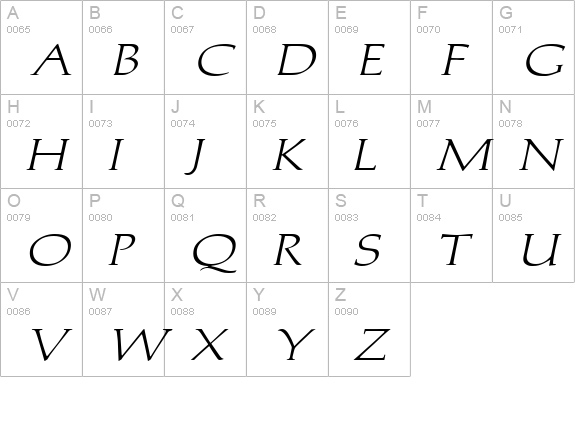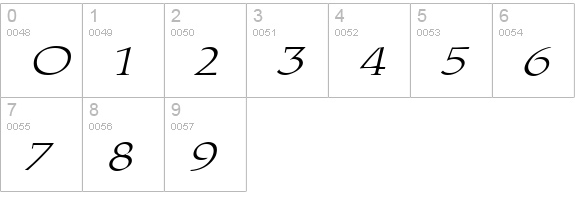
Trajan'sCapsExtended Italic Font Details
Trajan'sCapsExtended Italic is a distinctive, italic variant in the Trajan'sCapsExtended typeface family \xE2\x80\x94 well suited to design and typography projects.
Trajan'sCapsExtended Italic font is a stunning and elegant typeface that adds a touch of sophistication to any design project. With its elongated and slanted letterforms, this font exudes a sense of drama and class. The delicate curves and sharp angles create a harmonious balance, making it perfect for titles, headings, and logos. This font is the epitome of versatility, as it seamlessly blends traditional and contemporary elements. It captures the essence of Roman inscriptions with its timeless and refined style, while also incorporating a modern twist with its italicized form. Whether used in print or digital media, Trajan'sCapsExtended Italic brings a sense of grandeur and allure to any design. One of the best features of Trajan'sCapsExtended Italic font is that it is freely available to download at FontsMarket.com. This means that designers and creatives can access this remarkable typeface without any cost, allowing them to enhance their projects with a touch of elegance and sophistication. The font's availability for free ensures that it is accessible to a wide range of users, from professional designers to aspiring students. With Trajan'sCapsExtended Italic font, the possibilities are endless. Its unique and captivating design lends itself to a variety of applications, such as posters, book covers, and branding materials. Its versatility allows it to adapt to different styles and themes, making it a valuable asset for any design arsenal. So, if you're looking to elevate your design projects with a font that exudes elegance and refinement, look no further than Trajan'sCapsExtended Italic. Download it for free at FontsMarket.com and let its captivating curves and slanted forms bring a touch of sophistication to your next creative endeavor.